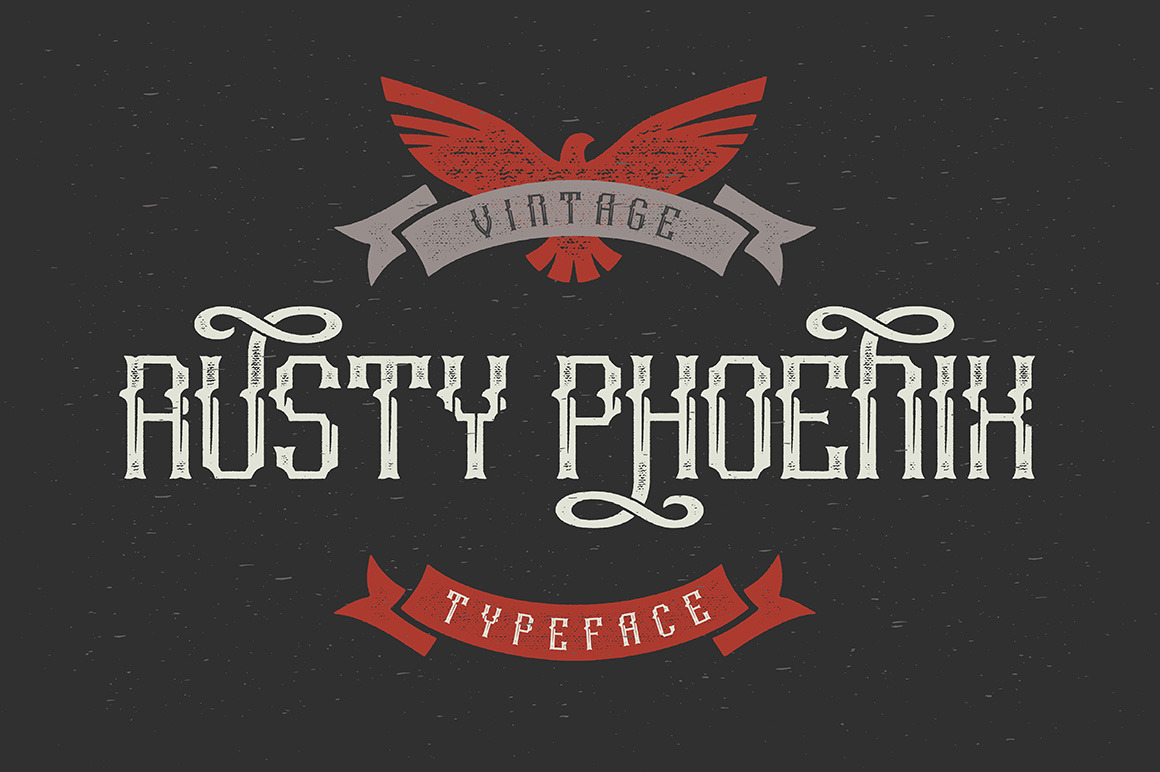
Rusty Phoenix Typeface
So if you need just a font, here you can save some money. It has three variations for each character: main font, and two variations with upper or lower swash (you can access them in glyphs palette). All screenshots are included in EPS10.
Note: Fonts contains ONLY latin letters (no digits or other glyphs).